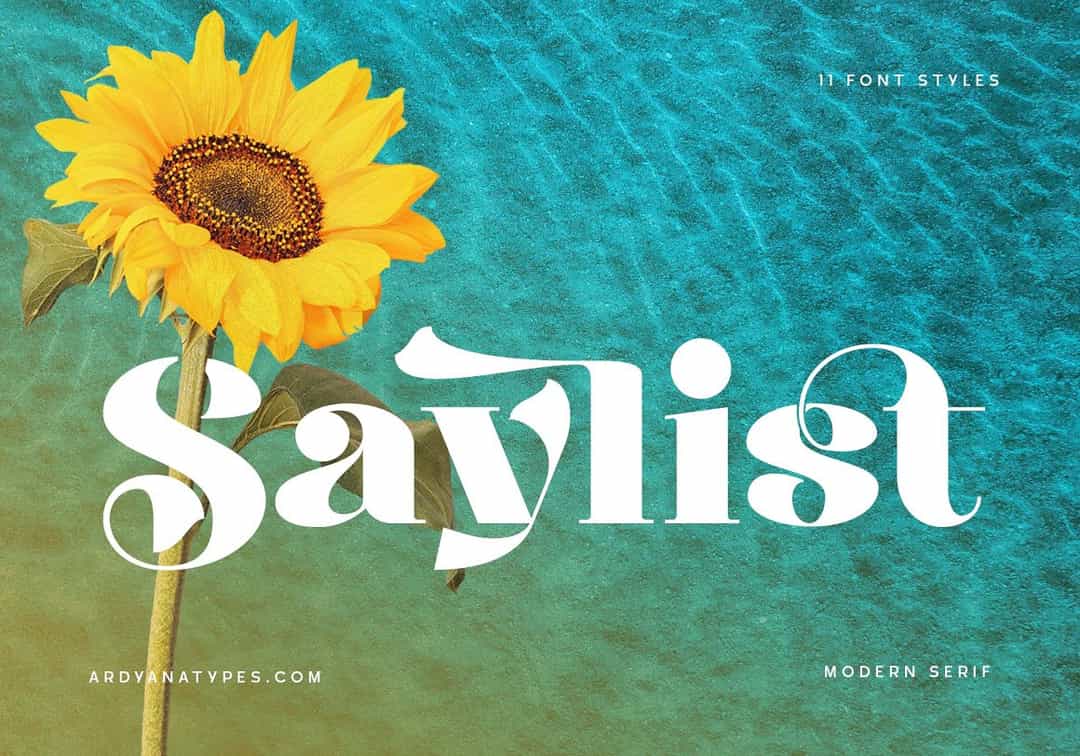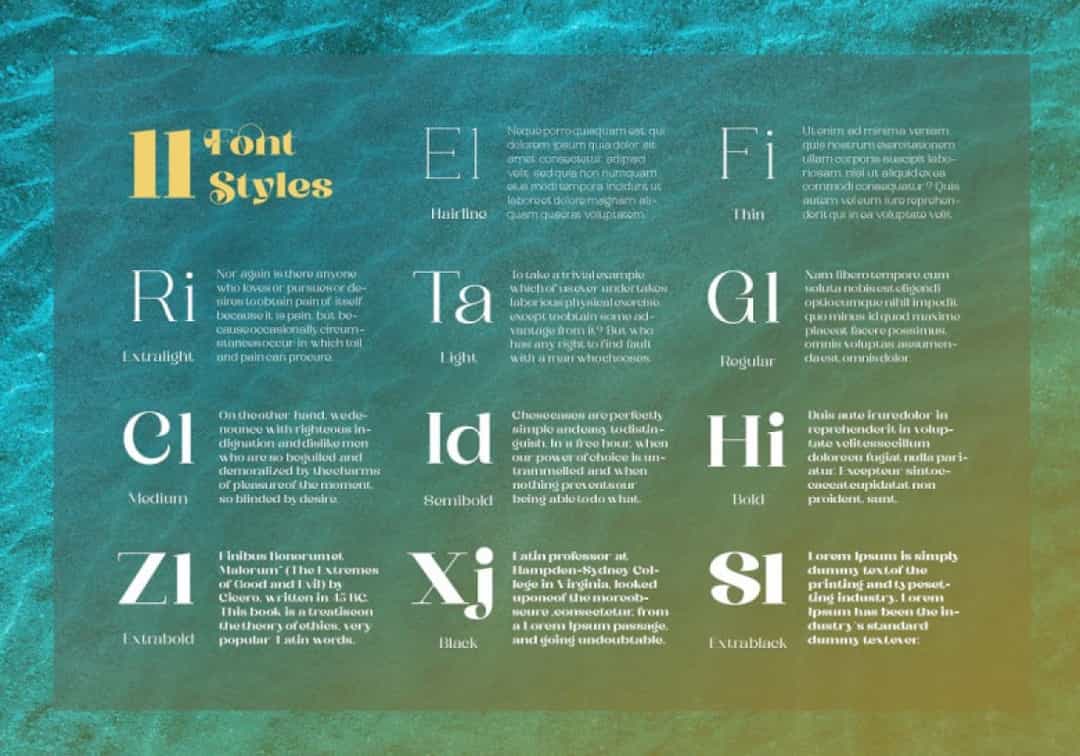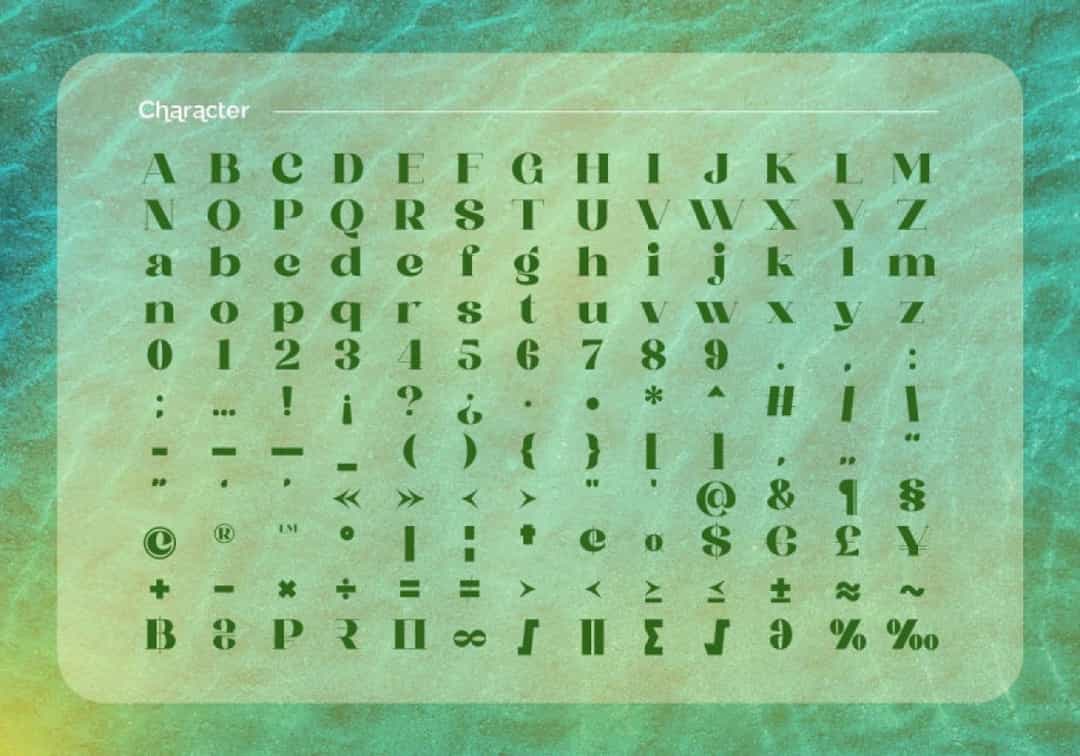
Saylist is an elegant serif typeface that exudes both sophistication and luxury, featuring multiple characteristics to produce designs with stunning beauty. Highly recommended for branding purposes or logo use, Saylist also allows users to incorporate it into a wide variety of projects and designs including elegant, unique vintage or sophisticated ones.